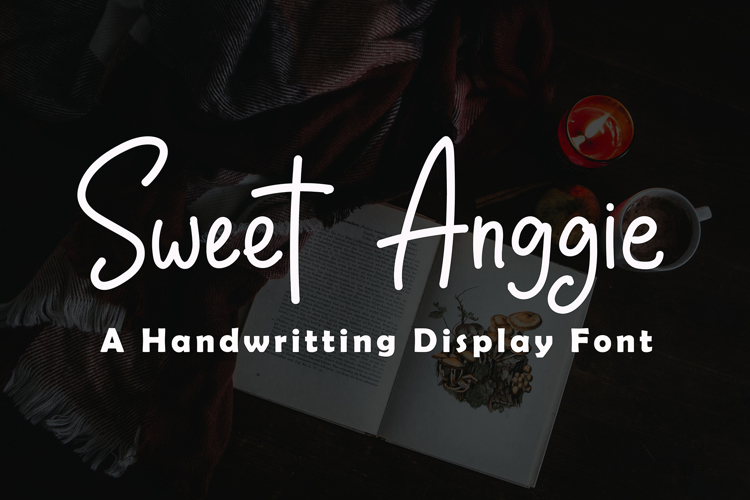
Sweet Anggie Font
About Sweet Anggie Font
Sweet Anggie is a stylish, cute, friendly and natural handwritten font. It is made from a marker pen. Its casual charm makes it look very down-to-earth, easy to read and, in the end, very versatile. Add this beautiful display font to your every creative idea. This font Incredibly versatile style and use it to create spectacular designs! Whether you’re using it for crafts, digital design, presentations, or making greeting cards, this font has the potential to become your favorite go-to font, no matter the occasion!Use this font for any crafting project that requires a personalized look! What’s Included : - Sweet Anggie (OTF, TTF & WOFF) - Works on PC & Mac - Easy to use ( Installations ) - Compatibility Windows, Apple, Linux, Cricut, Silhouette, and Other cutting machines. - Accessible in the Adobe Illustrator, Adobe Photoshop, Adobe InDesign, even work on Microsoft Word. - PUA Encoded Characters - Fully accessible without additional design software. - Fonts include multilingual support for; Afrikaans, Danish, Dutch, French, German, Indonesian, Irish, Italian, Norwegian, Portuguese, Scottish, Spanish, Swedish, Swiss. Hope you enjoy with our font!